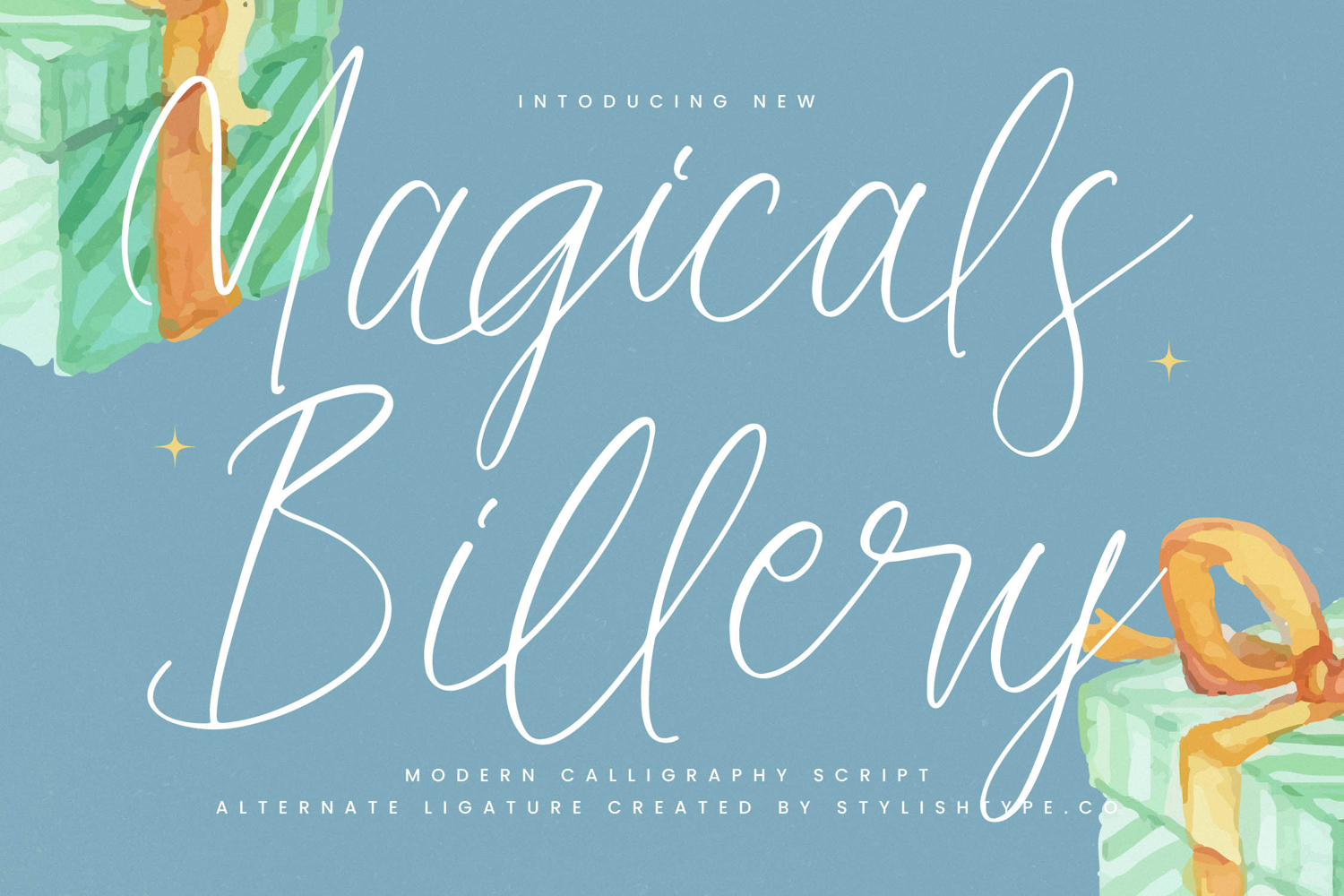
Magicals Billery - Modern Calligraphy Font
Magicals Billery
Elevate your design projects with the inherent charm and sophistication of Magicals Billery - Modern Calligraphy Font. This exquisite, handwritten script captures the spontaneous beauty of genuine brush strokes, delivering a personalized touch that commands attention. Its delicate, flowing baseline and exceptional connectivity create a seamless reading experience, positioning your brand within the realm of effortless luxury and refined taste.